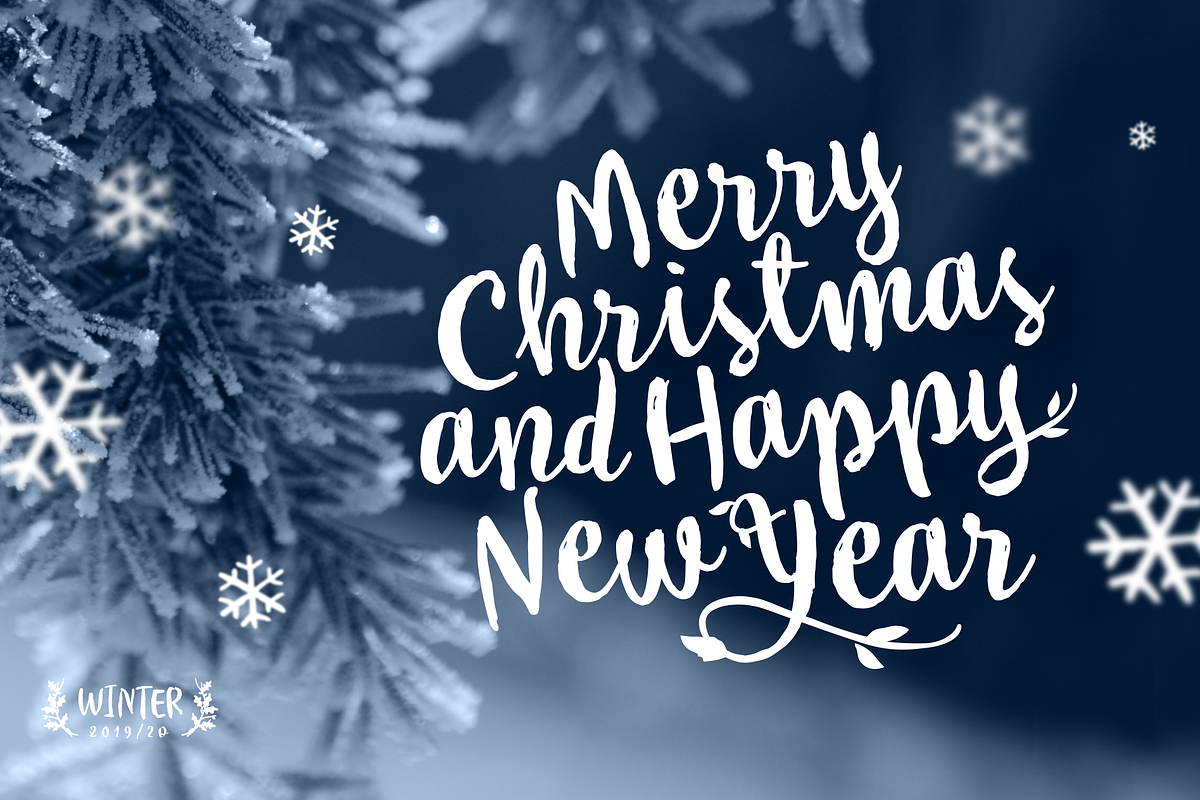
My Tara
My Tara is a handwritten script typeface with a casual, but rough look and sketched woody texture. Because of the fluidity, there is plenty of Standard Ligatures and Stylistic Alternates to avoid frequent repetition of letters. There are ligatures created for Cyrillic too.
If you need floral initials, first or last small letters in a word, there is My Tara Ornaments font (including Stylistic Alternates). You can choose My Tara Dingbats, with more than 300 crocky drawings of flora and fauna, authentic for National Park Tara.
My Tara is the perfect choice for truly natural and authentically beautiful things.